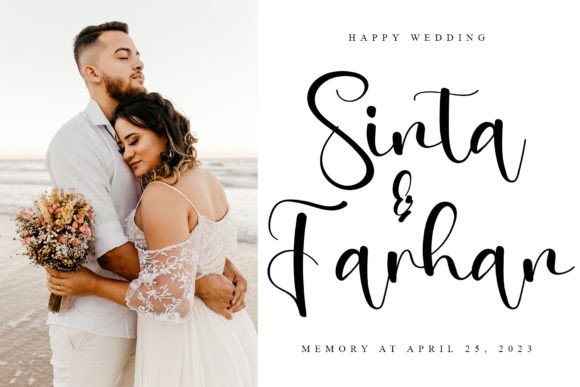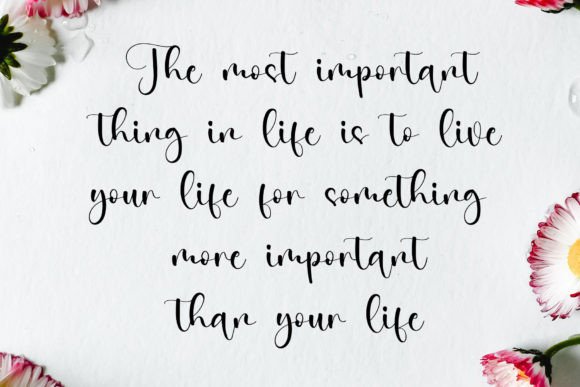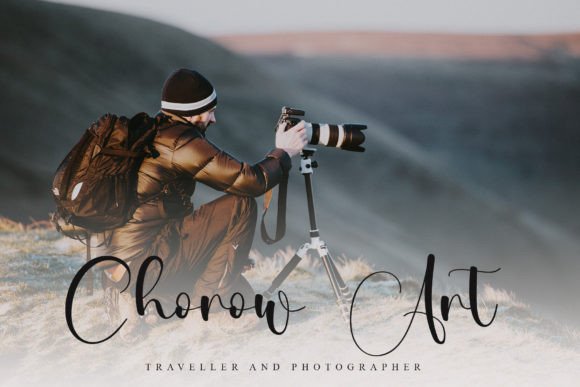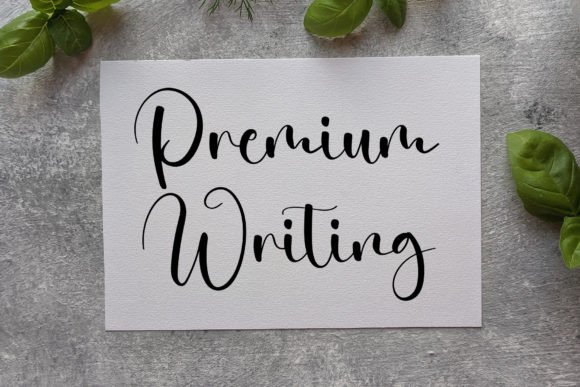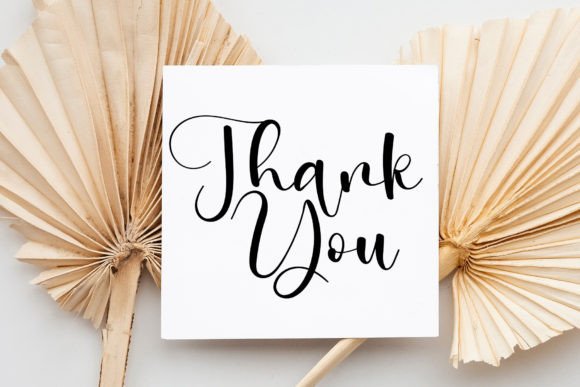
Introducing Angelic Font: The Sweet and Cursive Handwritten Font for Your Design Needs
Are you looking for a font that can add a touch of elegance and romance to your designs? Look no further than Angelic Font, a sweet and cursive handwritten font that is perfect for a variety of design projects. With its gentle and flowing curves, Angelic Font is sure to make your designs stand out and leave a lasting impression.
What Makes Angelic Font Special?
Angelic Font is a unique and beautiful font that is designed to add a joyful and romantic touch to your designs. Its cursive and handwritten style gives it a personal and intimate feel, making it perfect for designs that require a touch of elegance and sophistication. Whether you’re working on a branding project, creating a logo, or designing a wedding invitation, Angelic Font is the perfect choice.
Features of Angelic Font
- Sweet and Cursive Handwritten Style: Angelic Font has a beautiful, cursive handwritten style that is perfect for adding a touch of elegance and romance to your designs.
- Versatile: This font is versatile and can be used for a variety of design projects, including branding, logos, wedding invitations, greeting cards, and more.
- Elegant and Casual: Angelic Font is perfect for designs that require an elegant and casual touch. It’s ideal for designers who want to create a sophisticated look without appearing too formal.
- Easy to Read: Despite its cursive style, Angelic Font is easy to read and understand, making it perfect for body text and headings.
Use Cases for Angelic Font
Angelic Font is perfect for a variety of design projects, including:
- Branding: Use Angelic Font to create a unique and memorable brand identity that stands out from the competition.
- Logos: Create a beautiful and elegant logo that reflects your brand’s personality and values.
- Wedding Invitations: Add a touch of romance and elegance to your wedding invitations with Angelic Font.
- Greeting Cards: Use Angelic Font to create beautiful and heartfelt greeting cards for special occasions.
- Fashion: Angelic Font is perfect for fashion designs, including look books, marketing promotions, and more.
Tips for Using Angelic Font
Here are some tips for using Angelic Font in your designs:
- Pair it with Other Fonts: Angelic Font looks great when paired with other fonts, including sans-serif fonts and script fonts.
- Use it for Headings and Titles: Angelic Font is perfect for headings and titles, but it can also be used for body text.
- Experiment with Colors: Angelic Font looks great in a variety of colors, including pastel colors, bold colors, and metallic colors.
- Keep it Simple: Don’t overcomplicate your design. Keep it simple and elegant to showcase the beauty of Angelic Font.
Angelic Font is a beautiful and elegant font that is perfect for designers and crafters who want to add a touch of romance and sophistication to their designs. With its sweet and cursive handwritten style, Angelic Font is versatile and can be used for a variety of design projects. Whether you’re working on a branding project, creating a logo, or designing a wedding invitation, Angelic Font is the perfect choice.